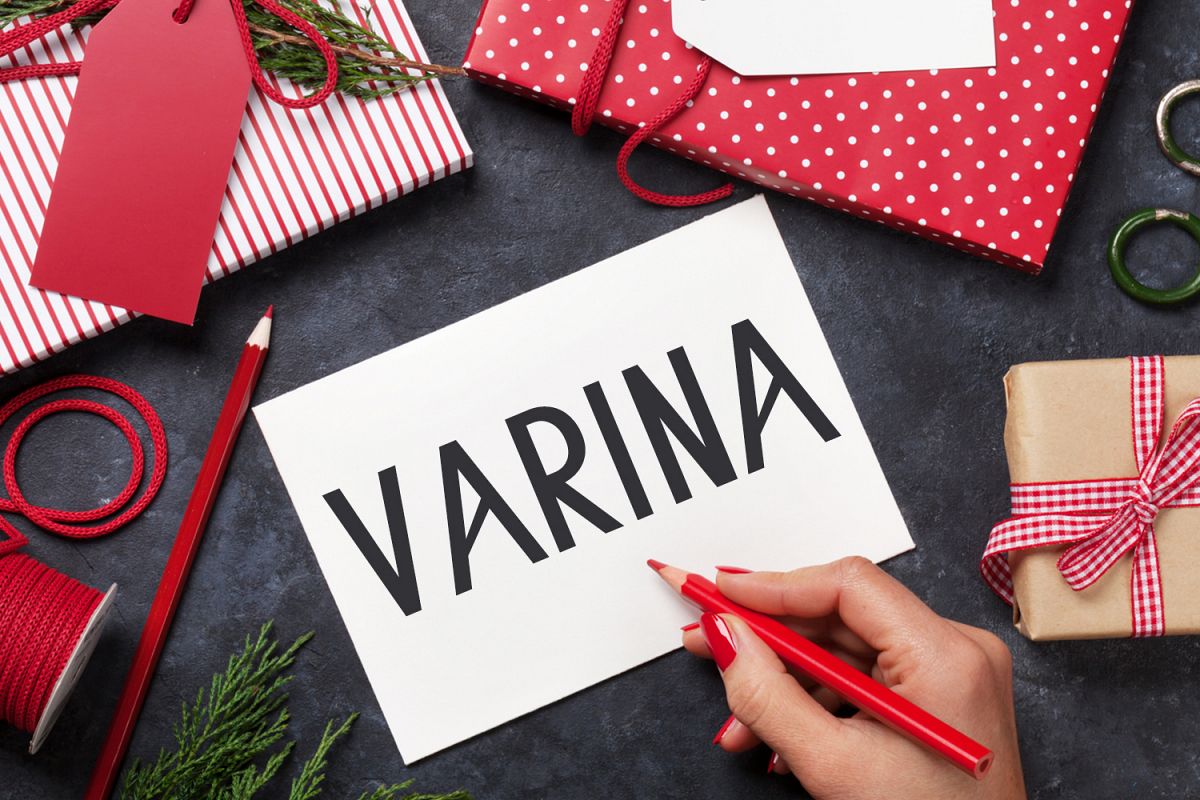
Varina Sans Serif Typeface
Varina Sans Serif Minimal font is a set of 5 weights fonts. Varina font family is good for making creative templates and stationary. Varina typeface suits best for modern / clean designs, logos, headlines, banners and templates etc.It looks gorgeous in all caps with a wide-set spacing if you want to try a classy look, or beautiful on its own in capital and lowercase letters for something completely timeless.Included Features:
• Regular, Thin, Light, Outline and Bold Weights
• Extras: Uppercase Multilingual Letters, Lowercase Multilingual Letters, Numbers & Punctuation + Alternatives.
Highlights
• Varina is a highly versatile Font Family Pack.
• Includes 5 weights
• The perfect choice for Modern, Fashion & Magazine Titles.
• Great for use on quotes, short phrases, magazines, logotypes and all sorts of advertising.